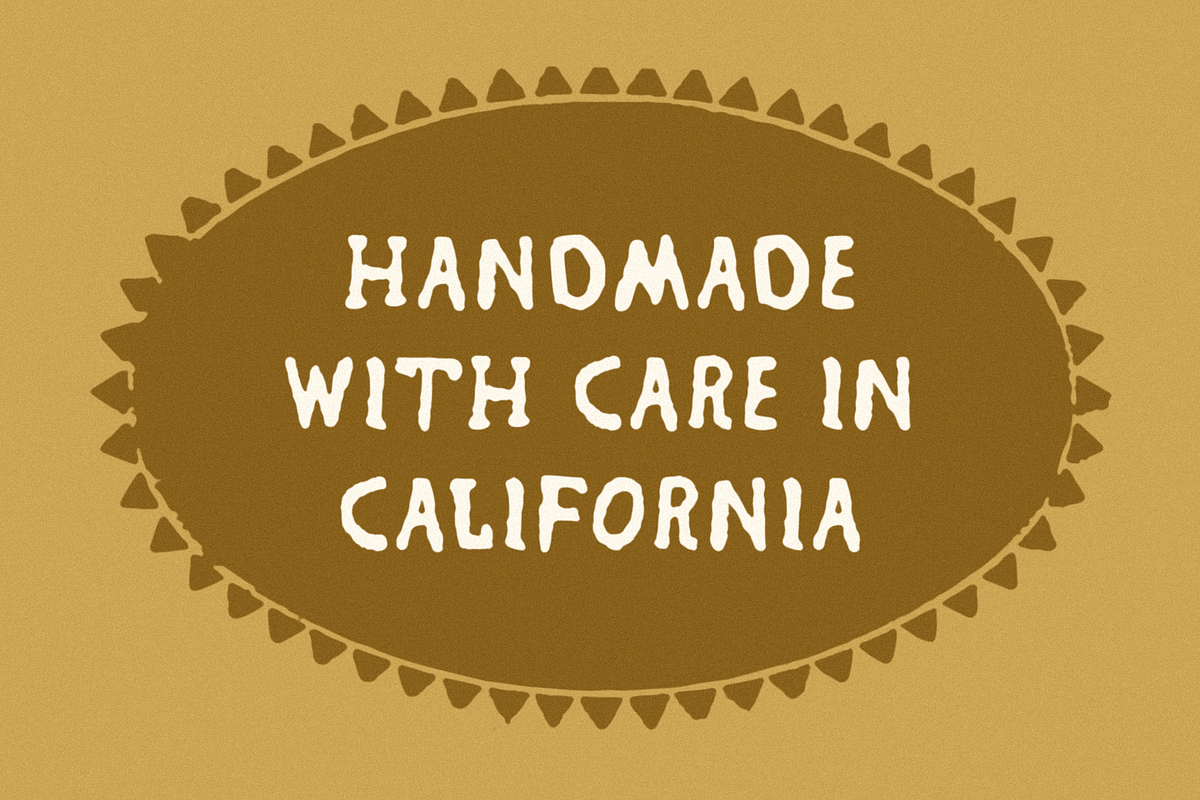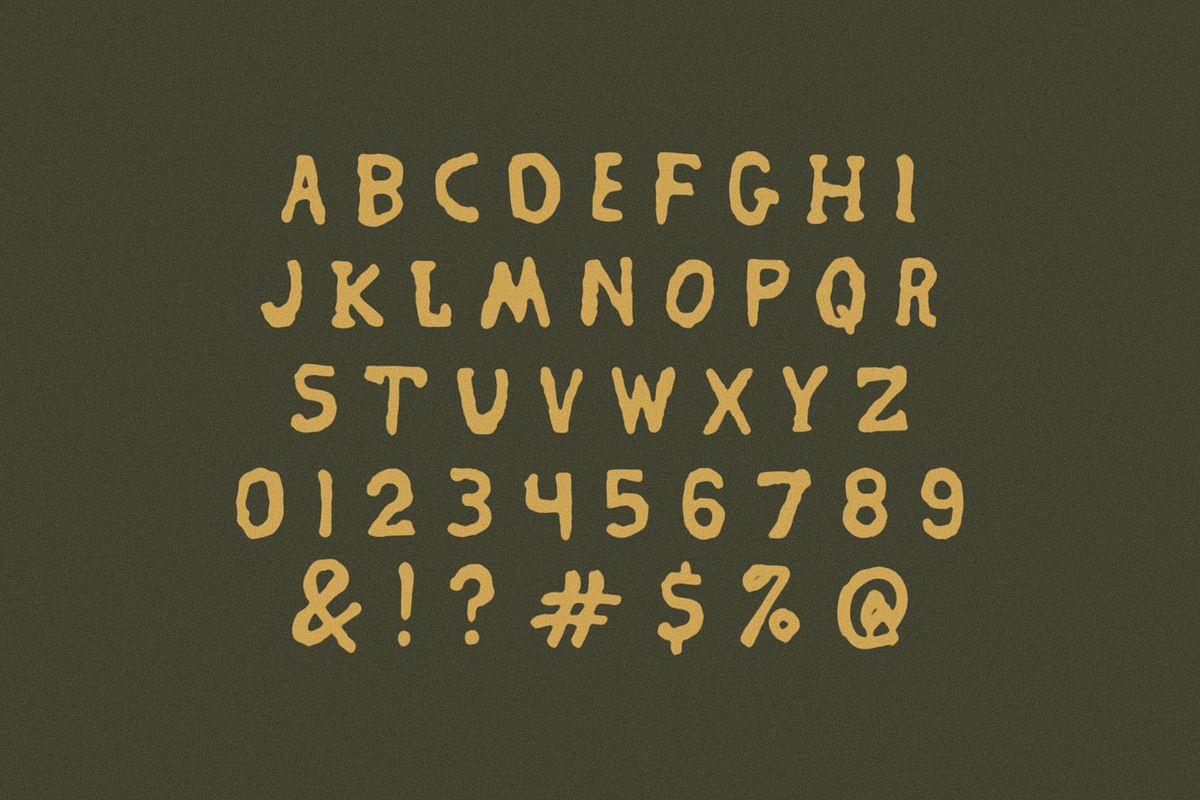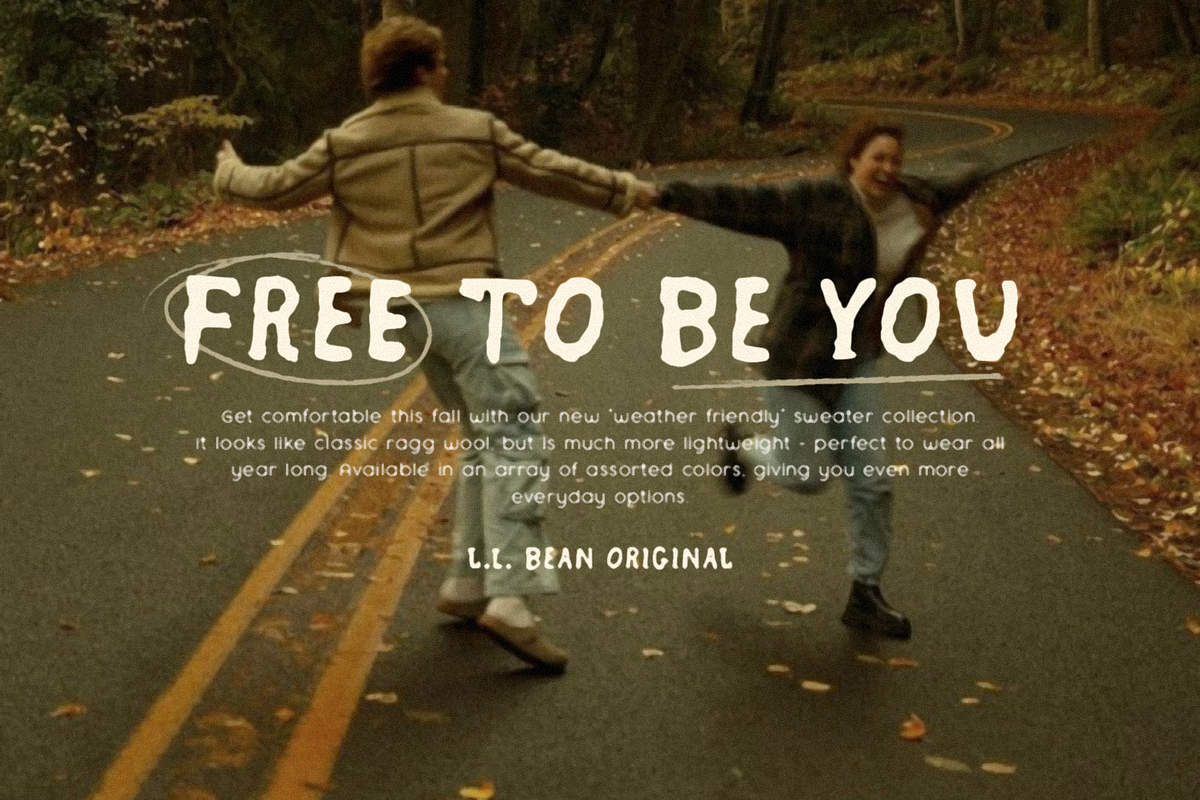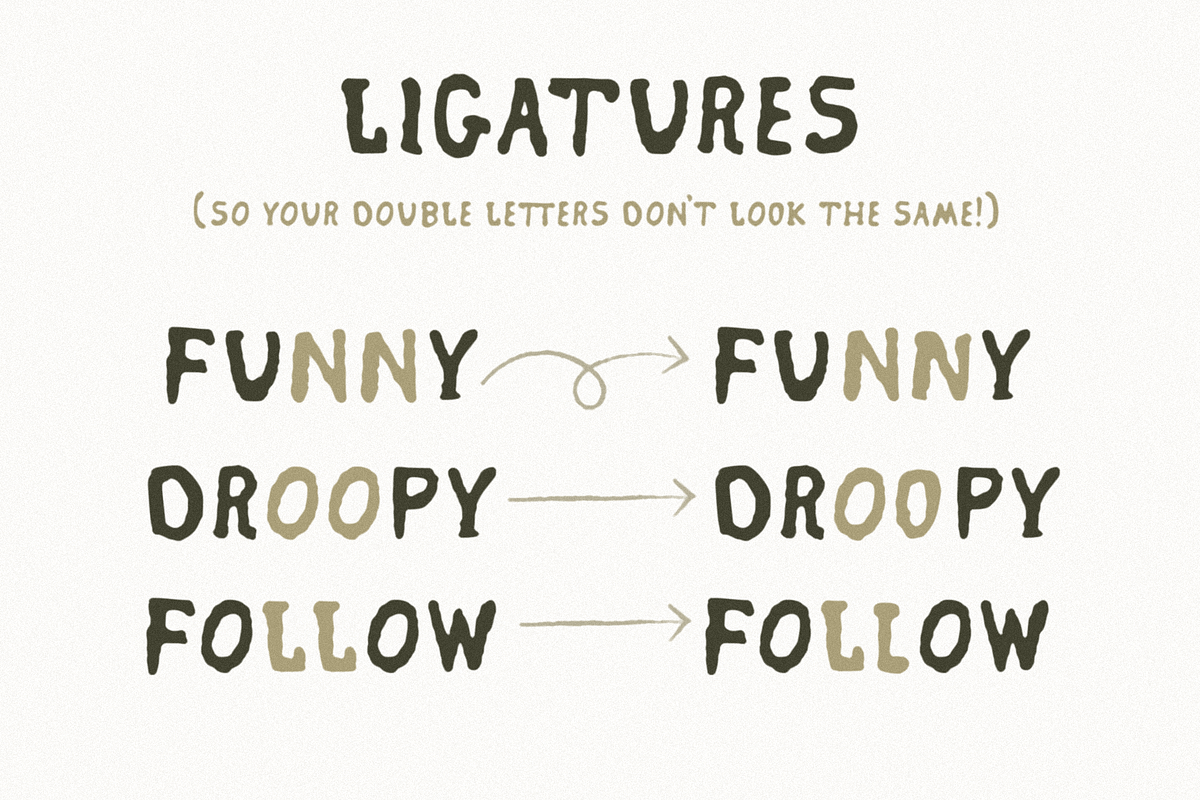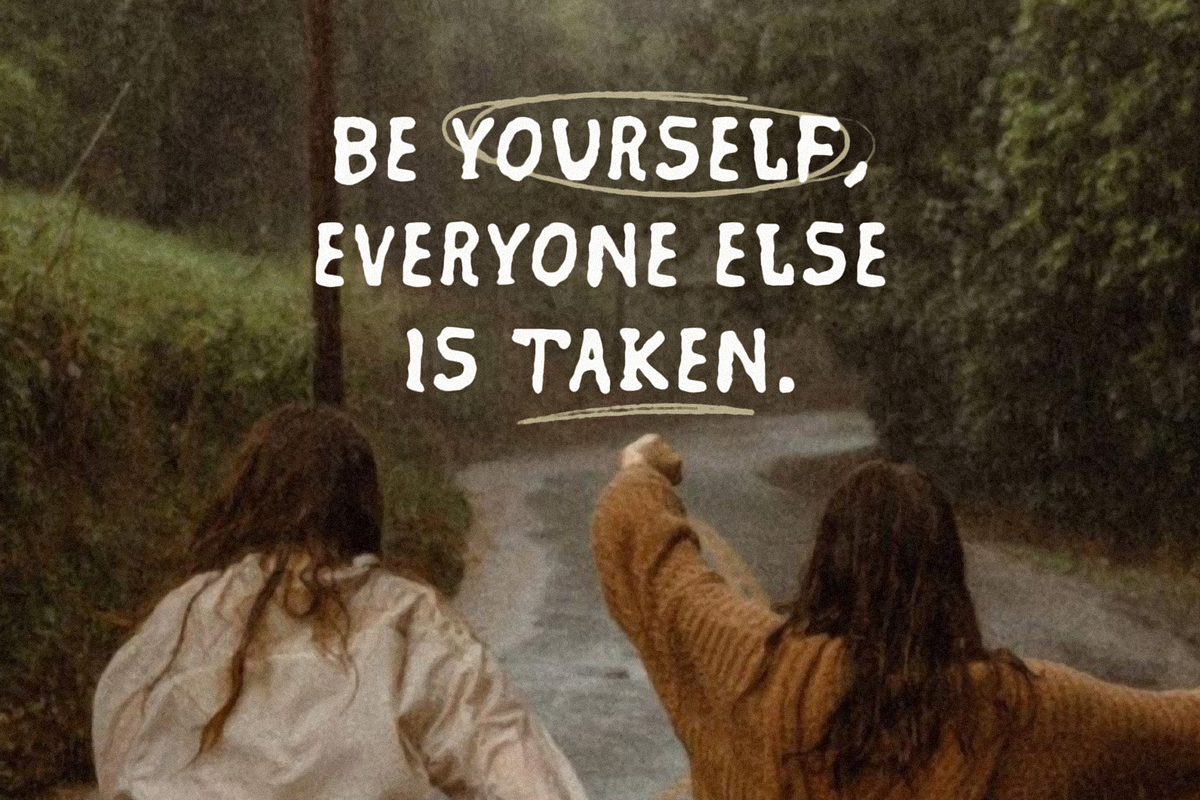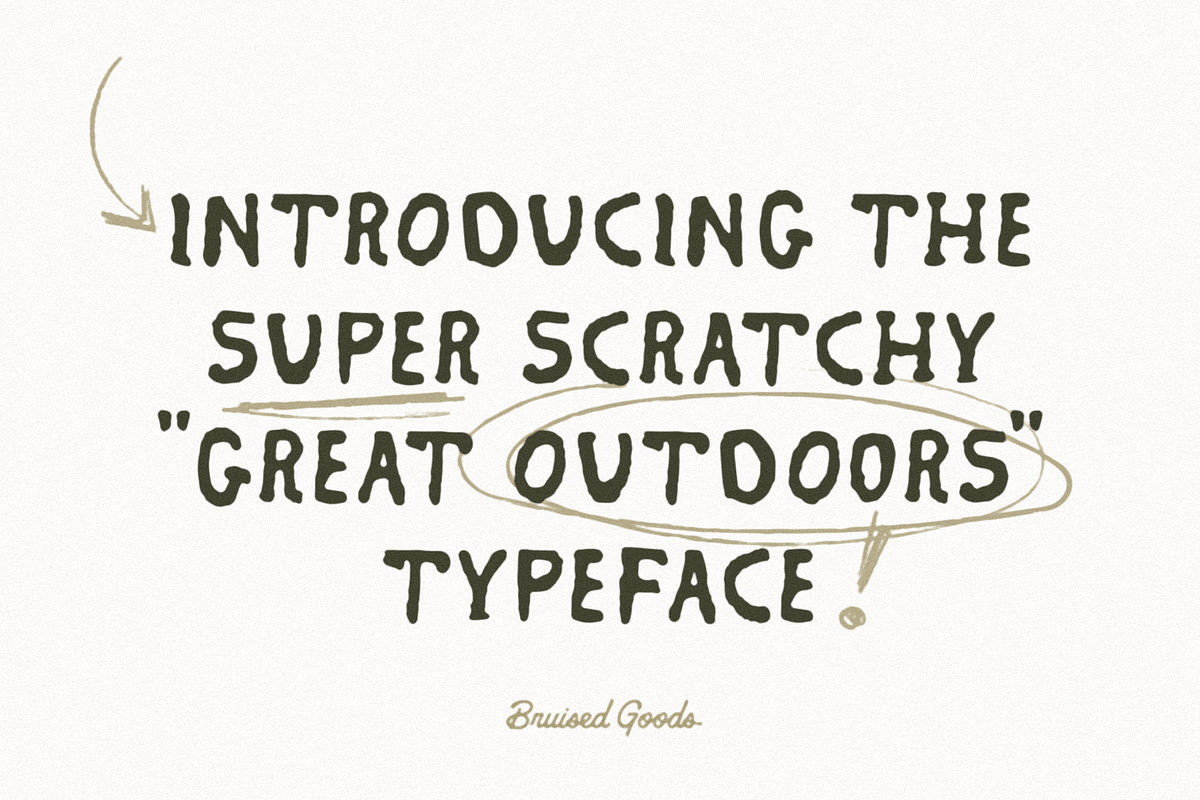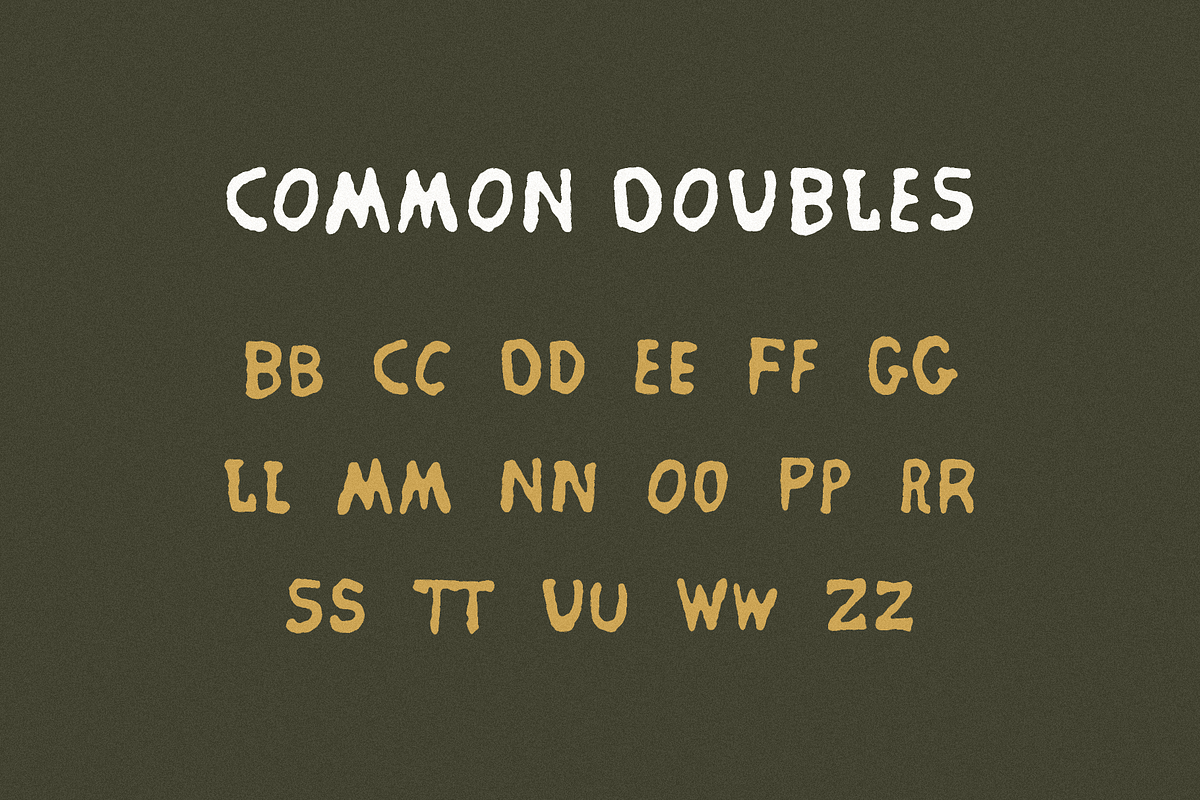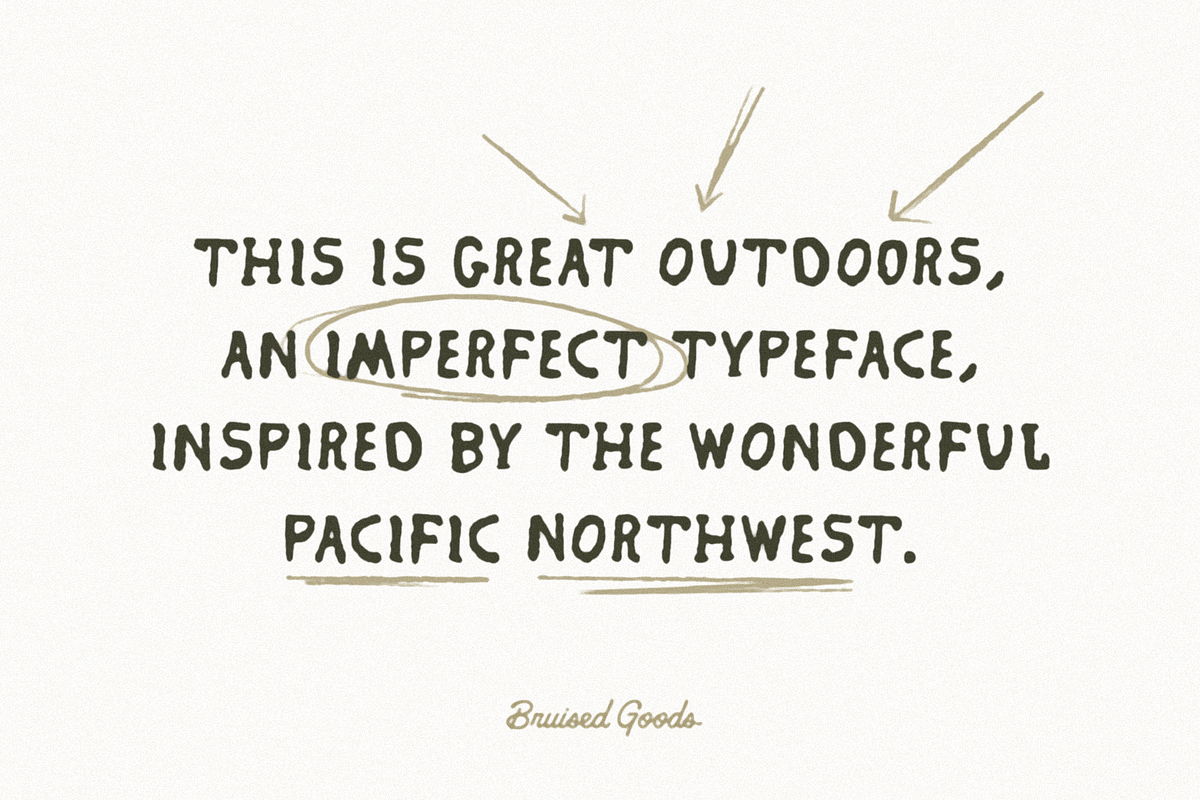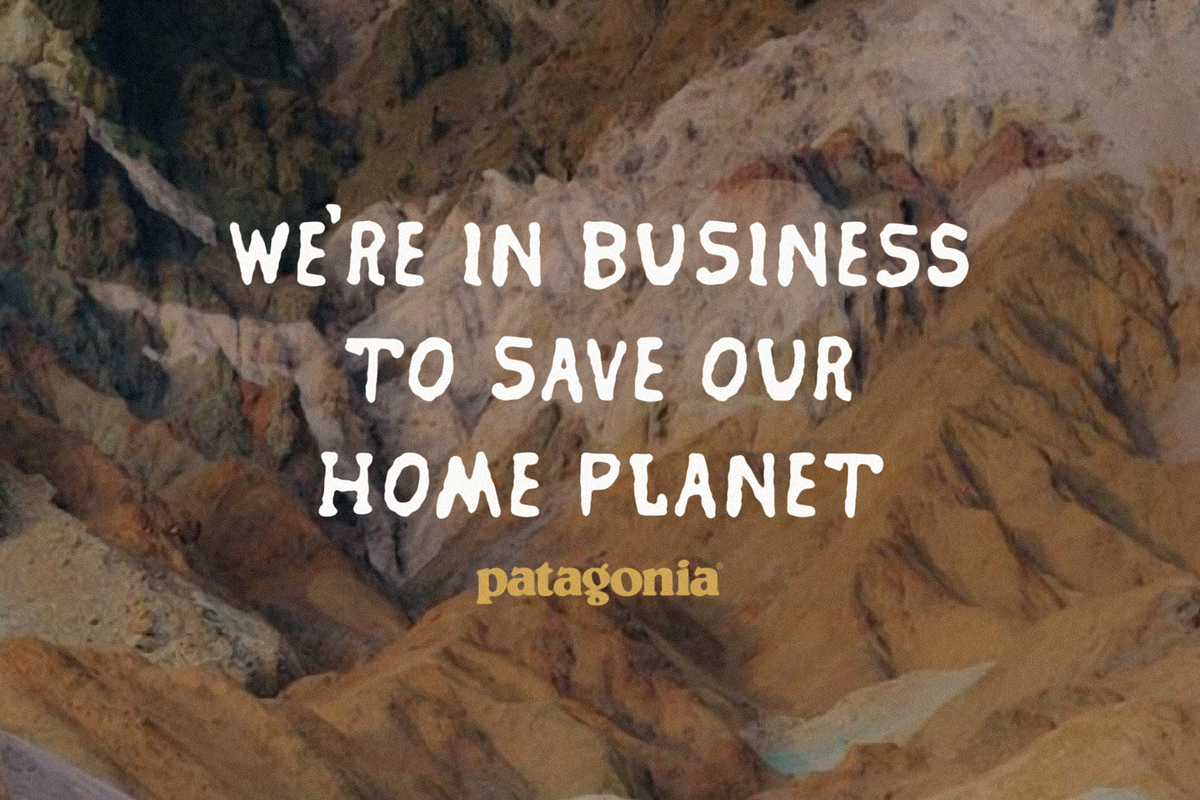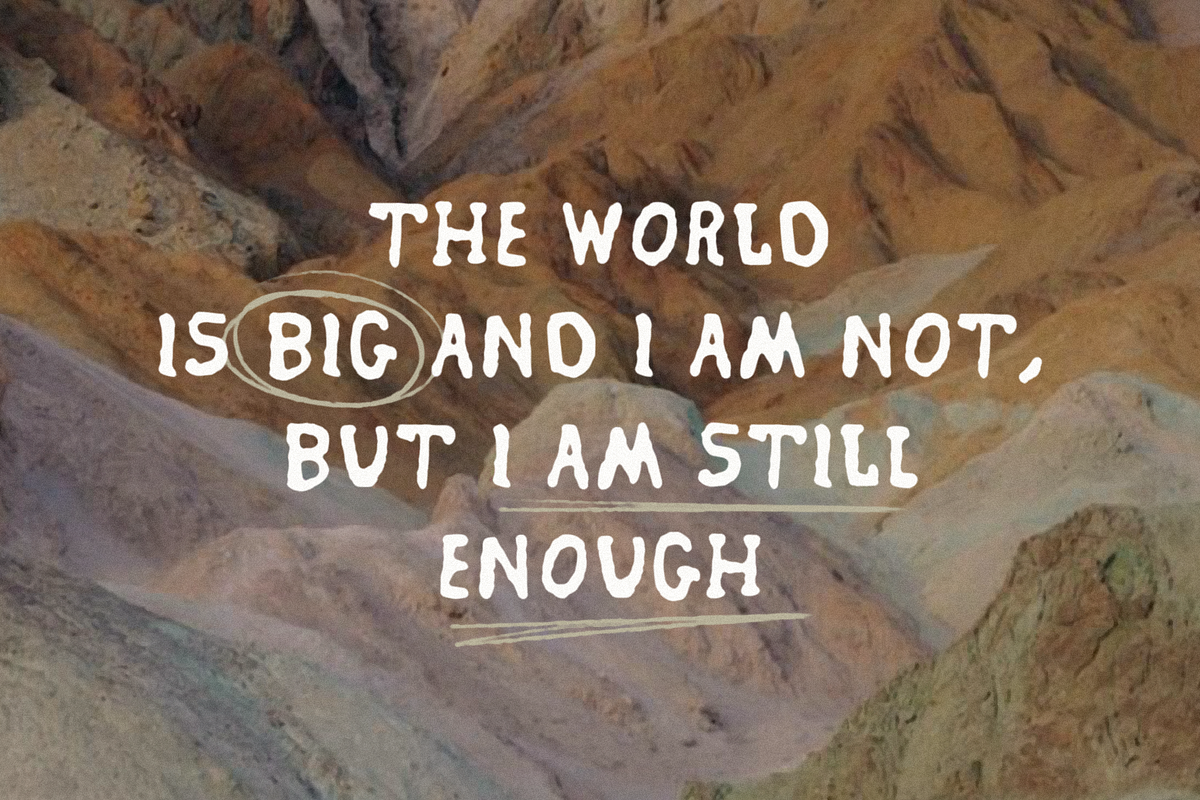
Great Outdoors
GREAT OUTDOORS – A super scratchy display typeface, inspired by the wonderful Pacific Northwest. Proudly made by Bruised Goods in Humboldt County, California.
- 2 Styles: Light & Regular
- 226 Glyphs per style: All Uppercase, Numbers, Symbols, Punctuation.